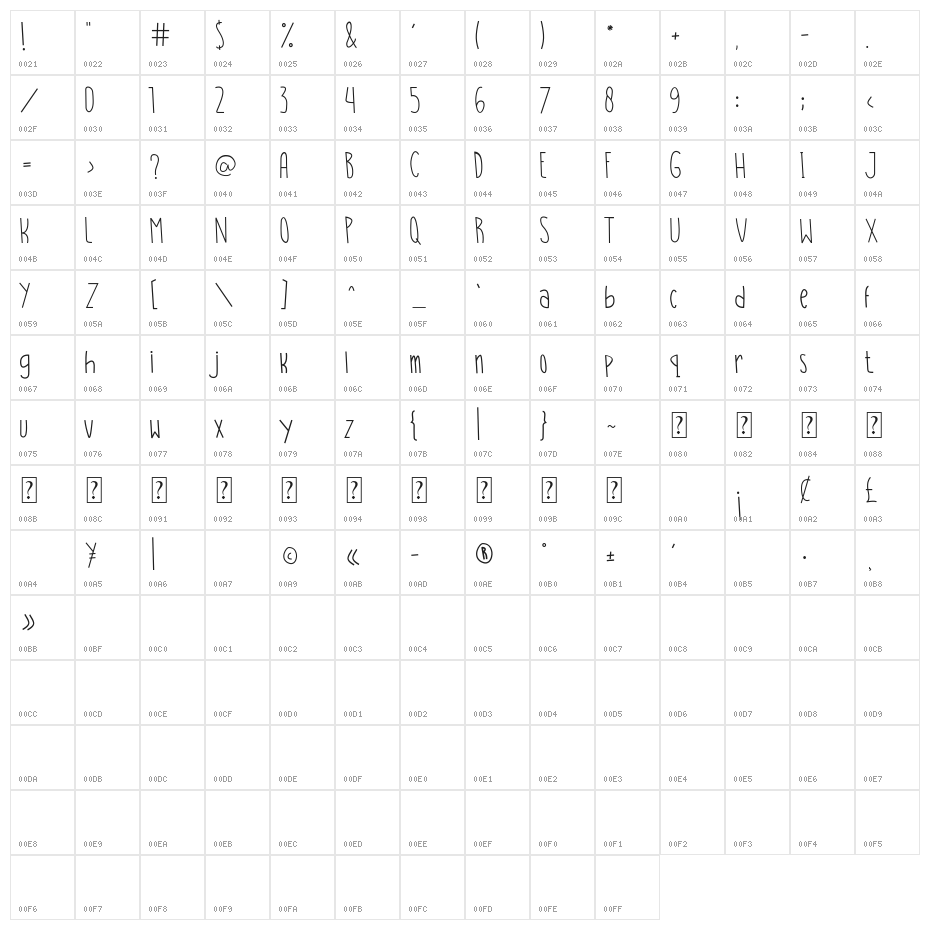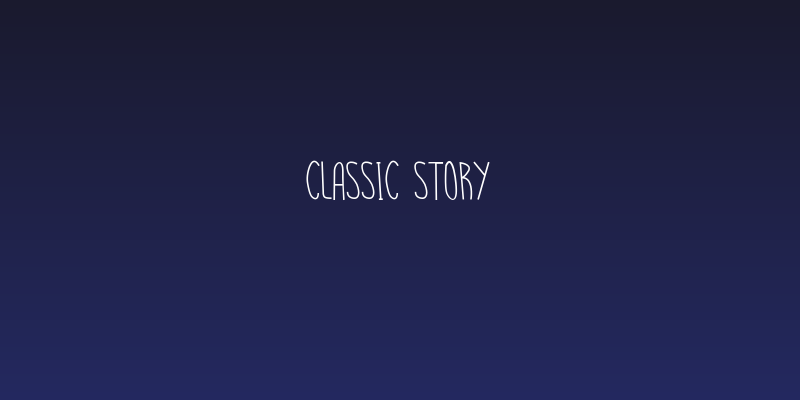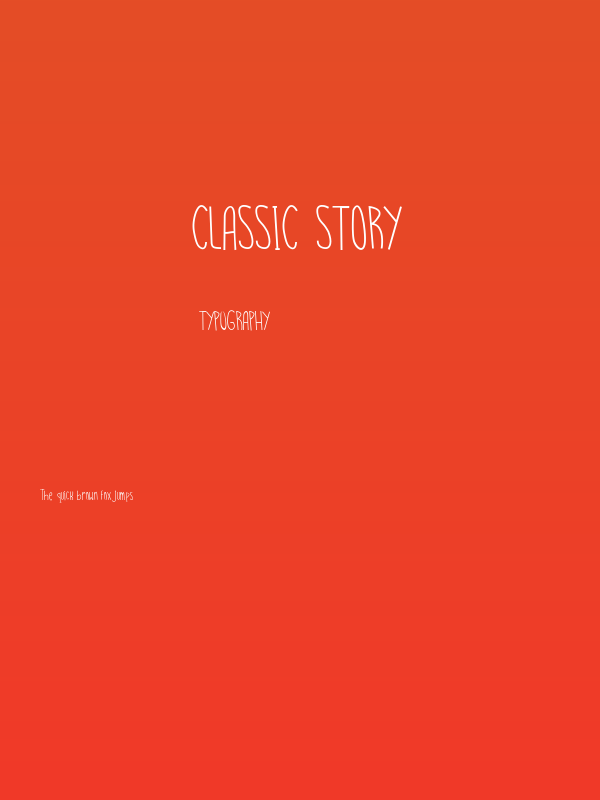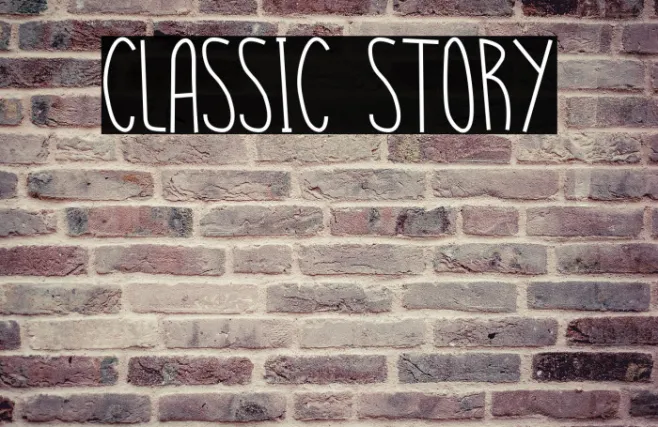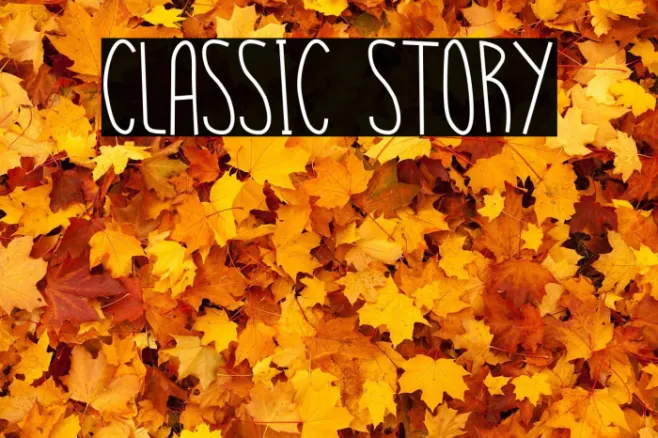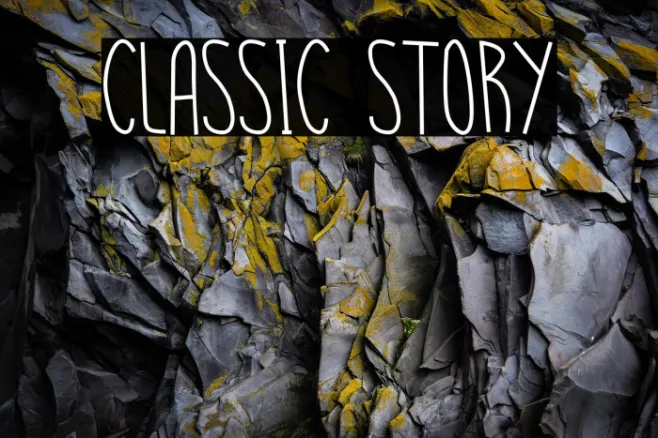
CLASSIC STORY Font
CLASSIC STORY Description
This font features a playful and whimsical design with tall, narrow characters that have a hand-drawn appearance. The uppercase letters are slightly taller than the lowercase, adding a sense of height and elegance. The strokes are consistent in width, giving it a uniform look, while the rounded edges soften the overall appearance. The numerals and special characters maintain the same playful style, making it suitable for creative and informal projects. The font's unique character spacing adds to its charm, making it stand out in any design.
| Proposed Projects | Ideal for children's books, greeting cards, playful branding, and creative posters. |